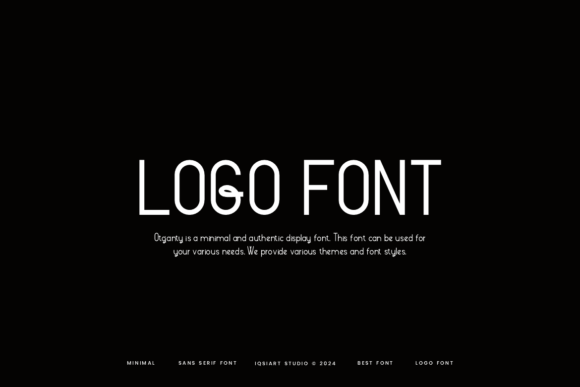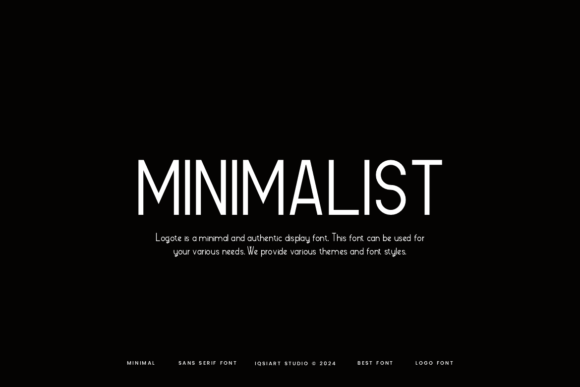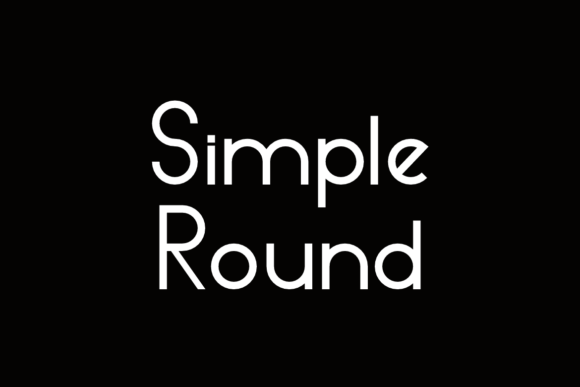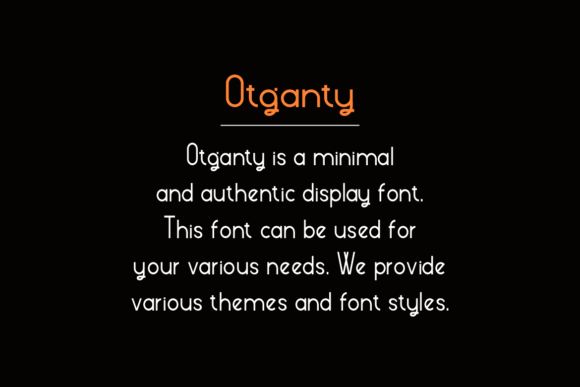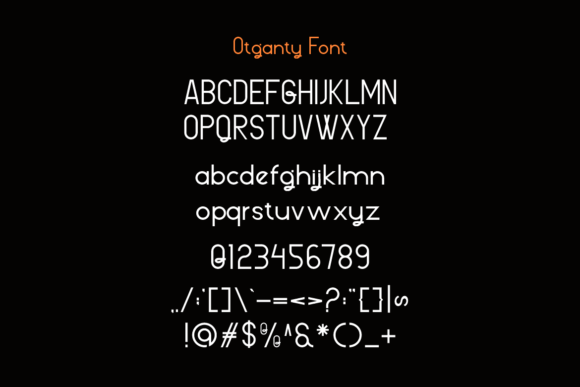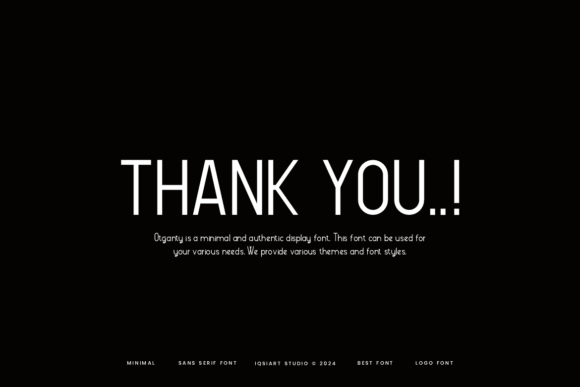
Introduction to Otganty Font
As designers, we’ve all been there – staring at a blank canvas, trying to bring our creative vision to life. The perfect font can make all the difference, elevating our design from good to great. And that’s exactly what the Otganty Font does – it’s a modern logo font that’s bold, stylish, and designed to make a statement.
With its clean lines and smooth curves, the Otganty Font is perfect for creating eye-catching logos that stand out from the crowd. Whether you’re working on a high-profile branding project or a personal creative project, this font is a valuable resource that’s sure to deliver high-quality results.
Key Features of Otganty Font
- Transparent background, allowing for seamless integration into various design elements.
- Designed with a unique and stylish aesthetic, perfect for adding a touch of sophistication to any creative project.
- Comes with a comprehensive character set, including a wide range of glyphs and symbols.
Honest Review: Otganty Font
As a designer, I’m always on the lookout for high-quality design resources to elevate my creative projects. Recently, I stumbled upon the Otganty Font, and I’m excited to share my honest review with you.
What works well: ✨ The Otganty Font boasts a unique and modern design, making it perfect for various creative projects. The font is highly customizable, allowing me to adjust the weight, style, and spacing to suit my design needs. I also appreciate the transparent background option, which gives me more flexibility when working with layered designs.
Overall impression: I’m impressed with the Otganty Font’s unique design and high-quality features. While it has some limitations, it’s still a valuable addition to any designer’s toolkit. I’d definitely recommend it for personal projects or small-scale commercial ventures.
To get the most out of the Otganty Font, consider using it in creative projects that require a unique and eye-catching design. The font’s high-quality design makes it perfect for use in logos, branding, and other design elements. Additionally, consider using the font with a transparent background to create a seamless design.
The Otganty Font is commonly used in a variety of design projects, including logos, branding, and presentations. Its high-quality design and unique style make it perfect for use in creative projects that require a unique and eye-catching design. Additionally, the font’s free download makes it an accessible design resource for designers of all levels.